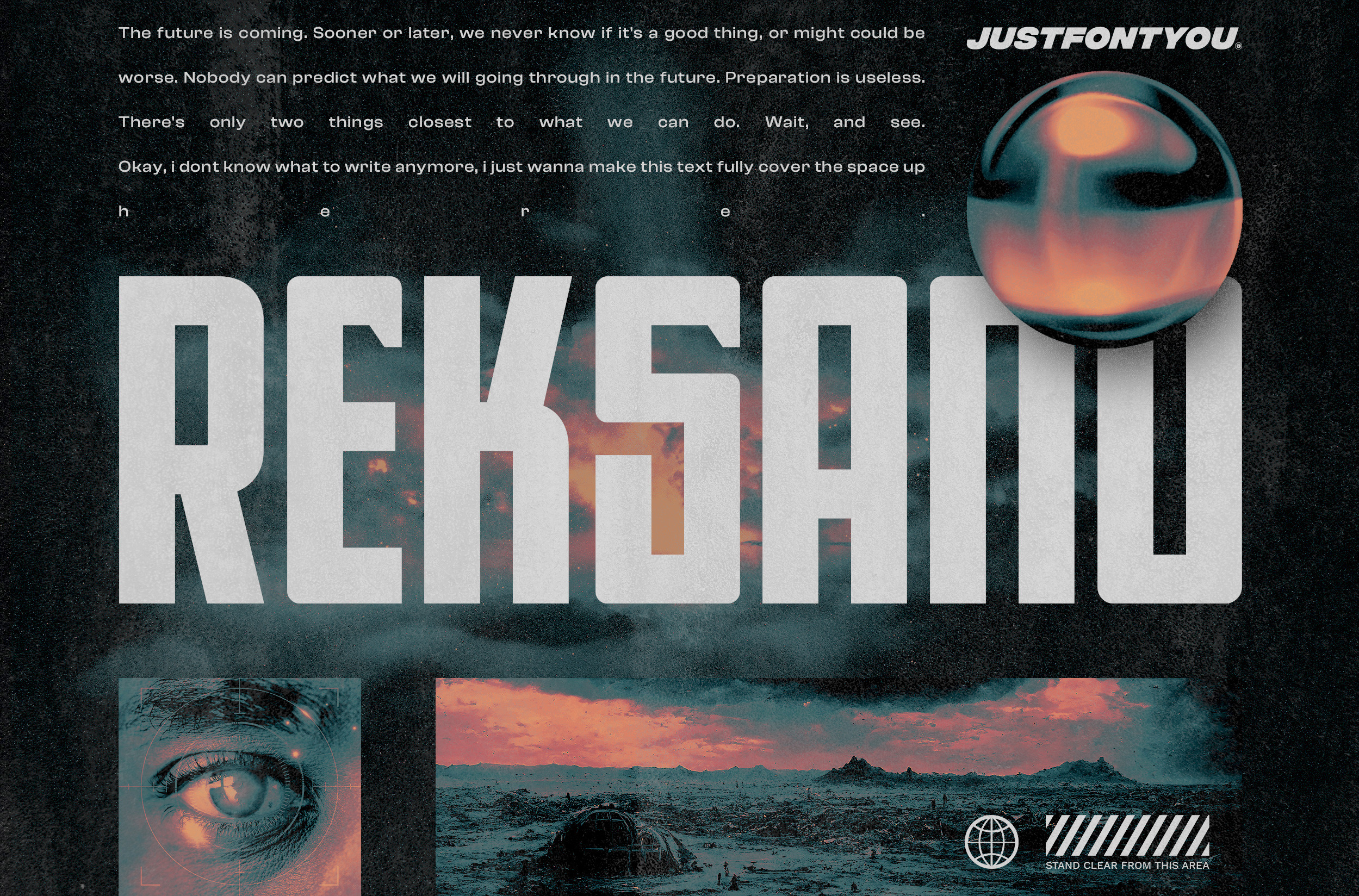
Reksano was inspired by retro vintage arcades, toys, and games back in the 90s era. Embracing the retro-futurism trend with the mindset from the past, predicting how the future will look from the human eye's perspective.
The bold, and tall form of construction makes the Reksano a no-doubt-game-changer for your graphic design visual journey.
Perfectly fit for logo, branding, gaming, esport design, poster, music video, album artwork, cover, book, packaging, merchandise, apparel, fashion, and many more.